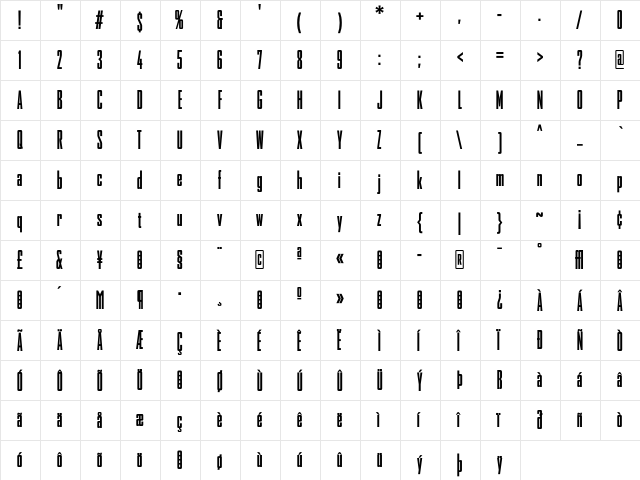
AgencyFBComp Bold Font Preview
AgencyFBComp Bold
Design Context for AgencyFBComp Typeface
AgencyFBComp offers clean, dependable letterforms without strong stylistic allegiance, making it a practical choice for designers who need flexibility. The heavy weight commands attention and anchors typographic hierarchies.